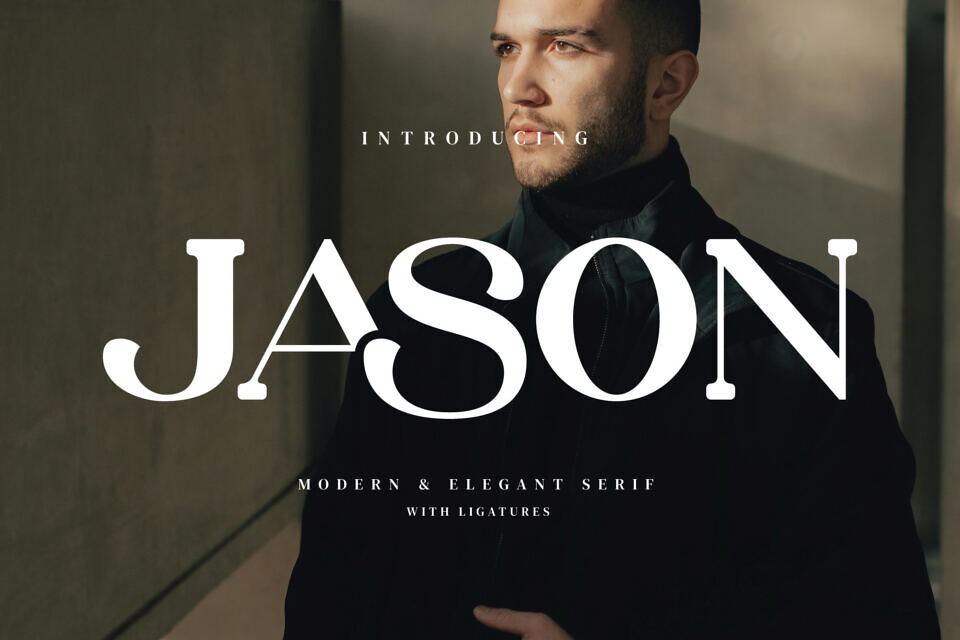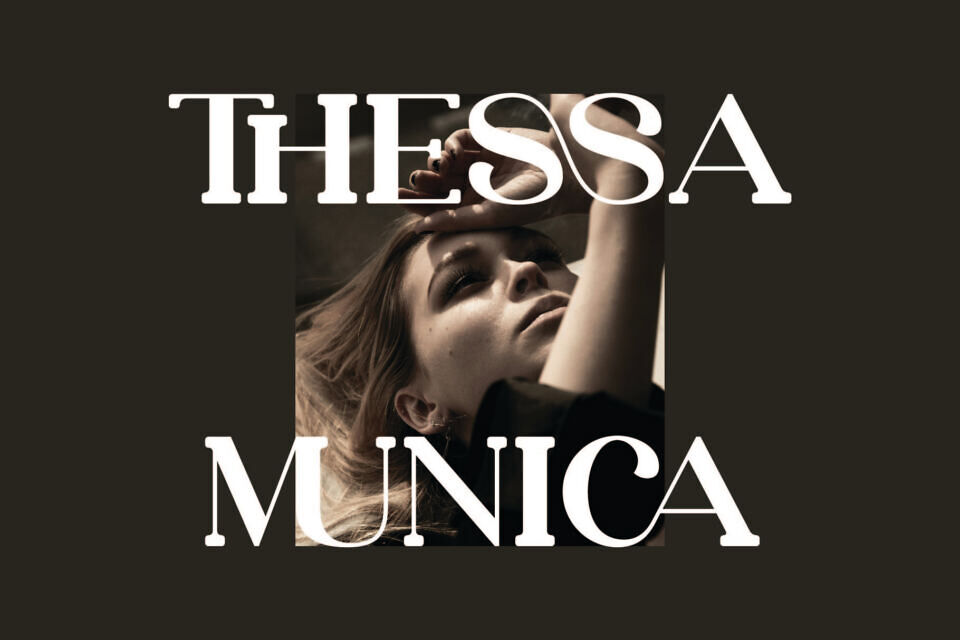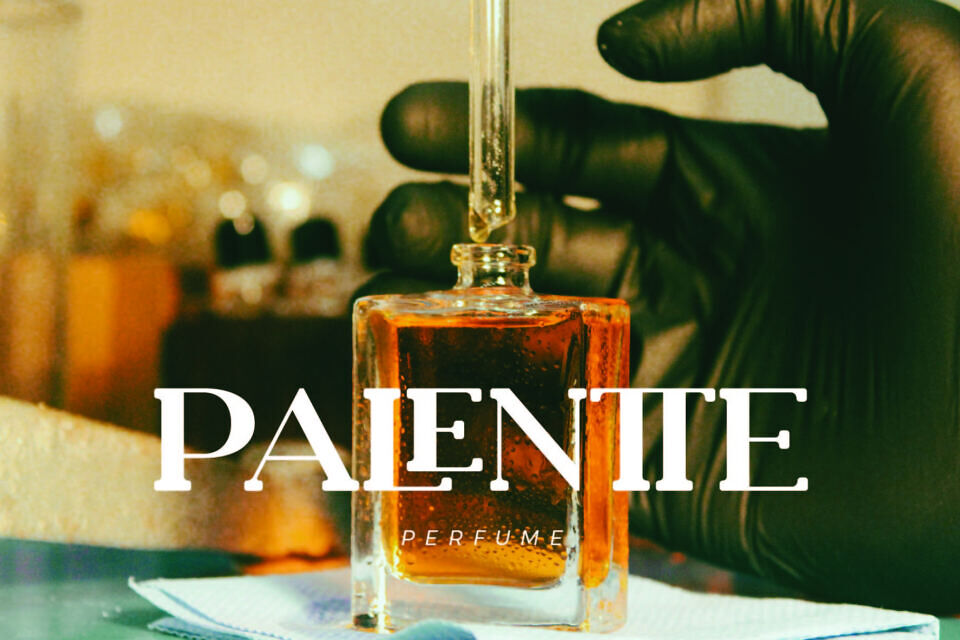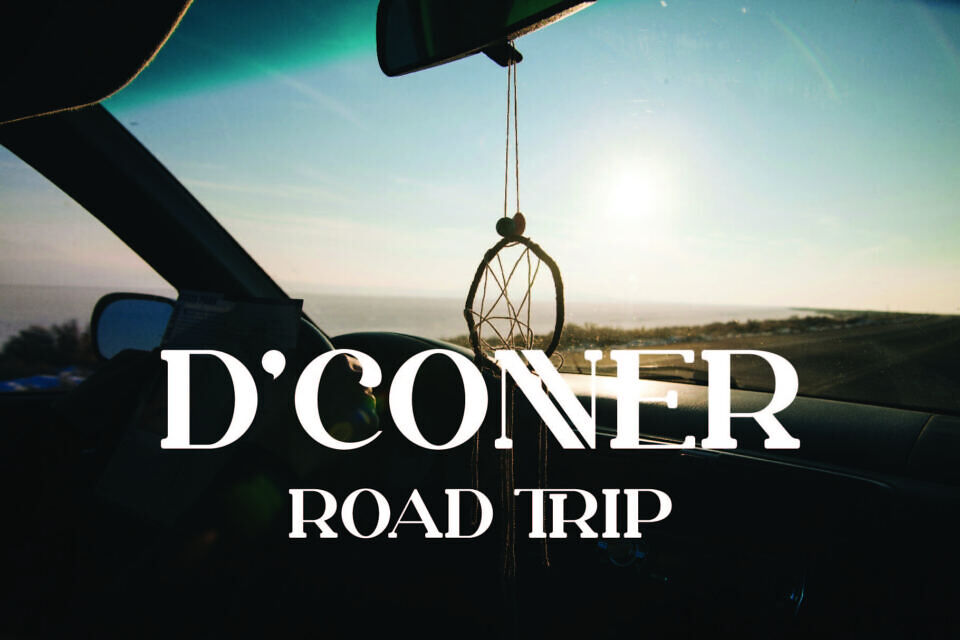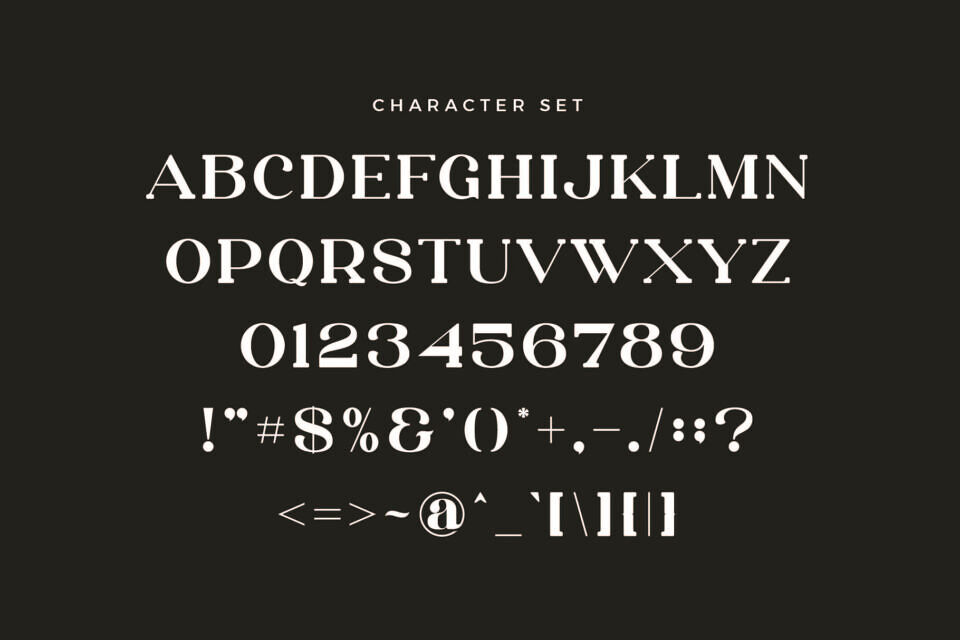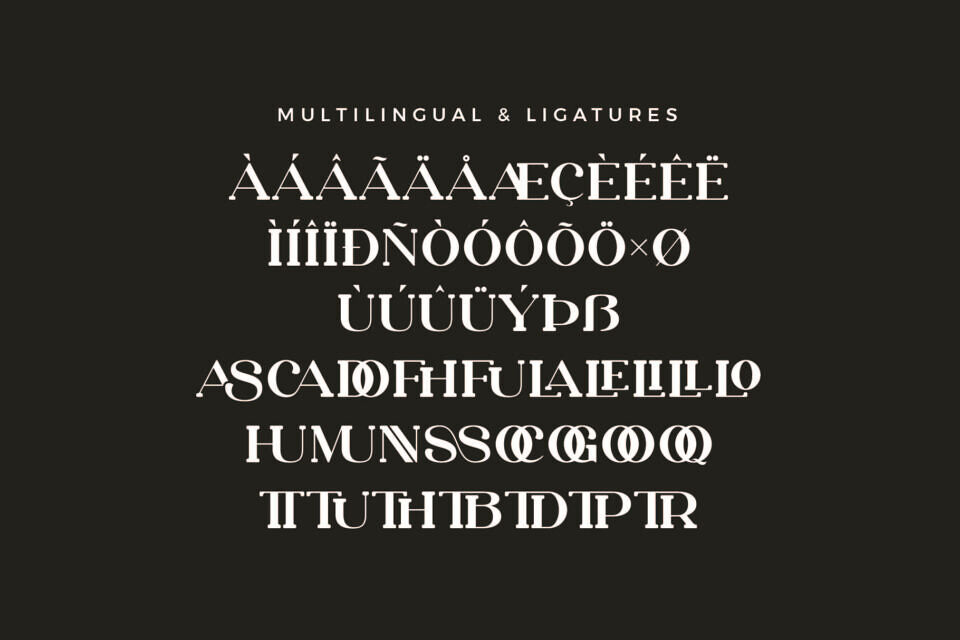
Jason Font
Jason, a stylish serif font, exudes timeless elegance and sophistication. With gracefully crafted letterforms and subtle serifs, it strikes a perfect balance between classic and contemporary. Elevate your designs with the distinguished charm of this typeface, adding a touch of refinement to any project.